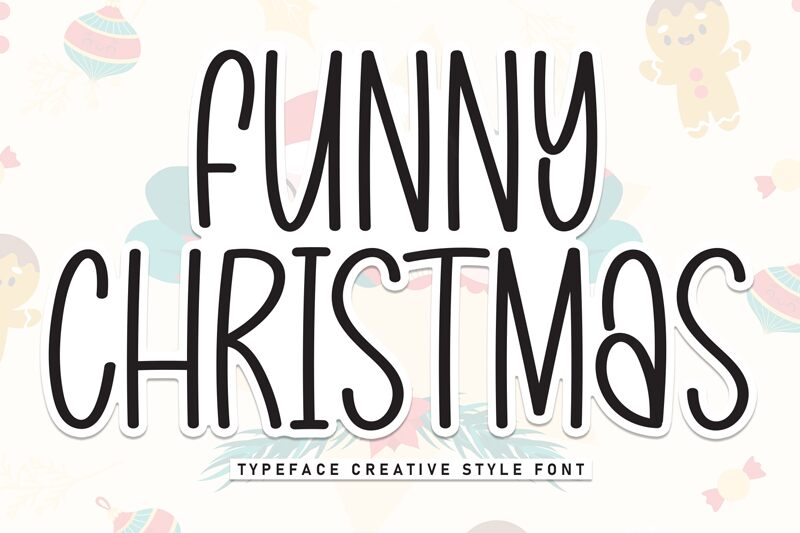
Funny Christmas font by Andi Moz is a free script that brings a playful and joyful touch to your projects. With its whimsical and informal style, it embodies a friendly and cheerful vibe, making it perfect for festive occasions. The decorative appeal of the font is complemented by its modern, yet approachable, appearance.
Ideal for holiday cards, invitations, branding, advertising, packaging, merchandise, posters, banners, websites, social media, and greeting cards, Funny Christmas can add a special touch to any project where a fun, light-hearted aesthetic is needed.
This is a sweet and friendly handwritten display font. Cute and fun, this font is ideal for writing wedding invitations, cards, or any other design that might need a playful touch!